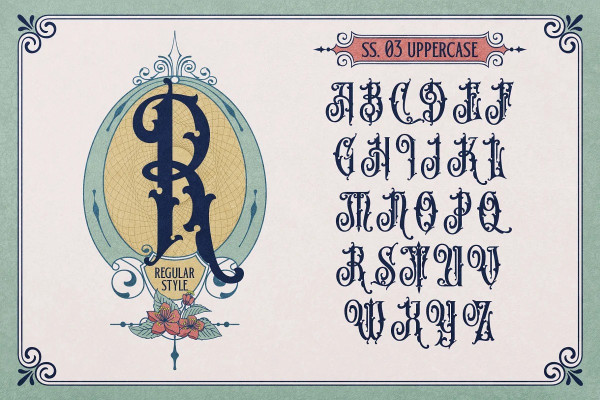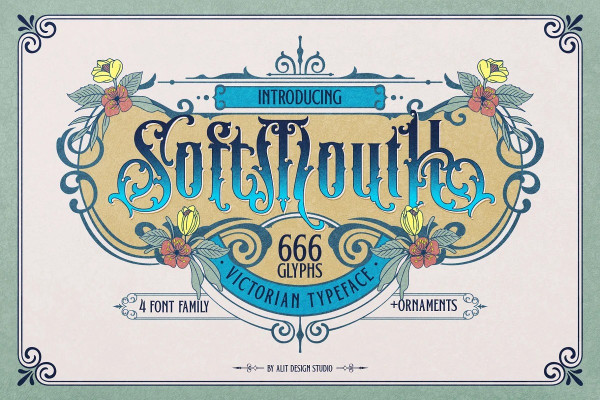
Soft Mouth Victorian Font
Soft Mouth Victorian Font, a font that encapsulates the essence of Victorian elegance. This font style exudes an air of refinement and opulence, perfect for adding a touch of grandeur to your design projects.
The “Soft Mouth Victorian Typeface” offers a versatile range of options with its four font families: Regular, Hole, Ornament, and Serif. The “Regular” font family serves as a reliable choice for everyday text, providing legibility and clarity. The “Hole” font family adds a unique twist, featuring intricate designs with hollowed-out letterforms, creating an intriguing visual effect. The “Ornament” font family boasts exquisite decorative elements, allowing you to embellish your designs with ornate flourishes. Lastly, the “Serif” font family offers a classic and refined aesthetic, perfect for evoking a sense of tradition and sophistication.
This typeface includes a comprehensive set of ligatures and alternates, enabling seamless connections between letters and enhancing the overall flow and visual harmony of your text. With an impressive collection of 666 glyphs, you’ll have an extensive range of characters and symbols at your disposal, allowing you to unleash your creativity and experiment with various typographic compositions.
As an added bonus, the “Soft Mouth Victorian Typeface” comes bundled with bonus features. You’ll find a selection of beautifully crafted frames that can be used to accentuate and highlight specific content within your designs. Additionally, delicate and enchanting flower ornaments are included, offering an exquisite touch of natural beauty to enhance your typographic arrangements.
Whether you’re working on elegant invitations, branding projects that require a touch of vintage sophistication, or creating elaborate typographic artworks, the “Soft Mouth Victorian Typeface” is a must-have resource. Its Victorian elegance, extensive features such as ligatures and alternates, a rich collection of 666 glyphs, and the added bonus of frames and floral embellishments, make it an invaluable asset for bringing a sense of timeless charm to your creative endeavors.